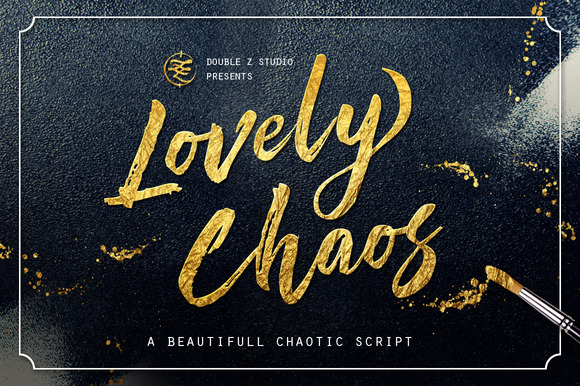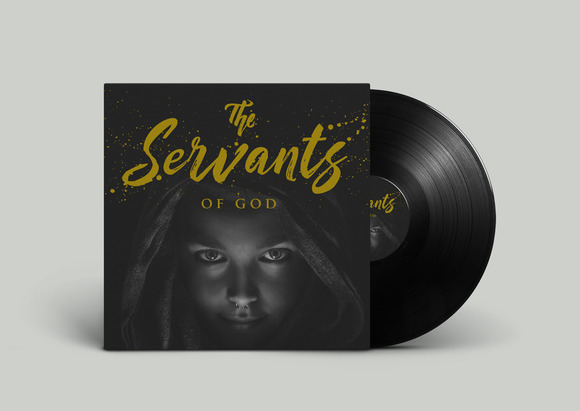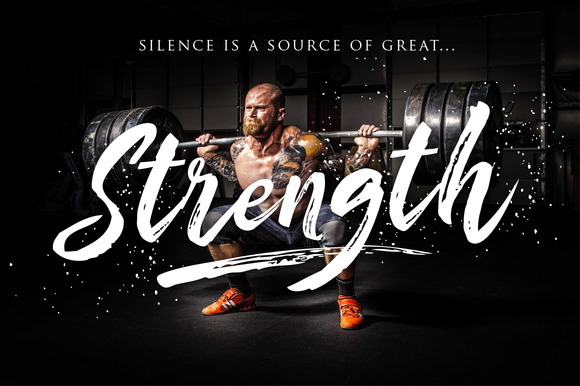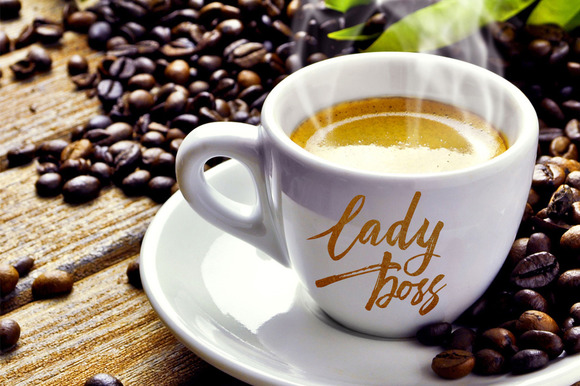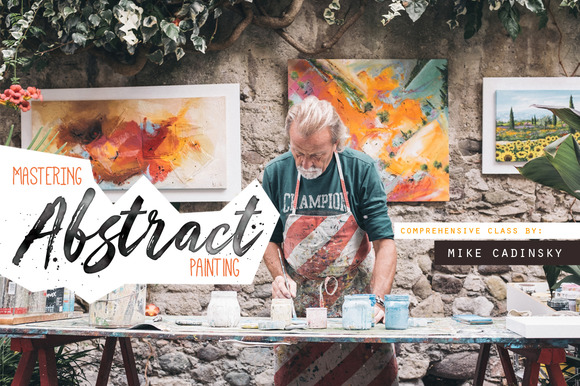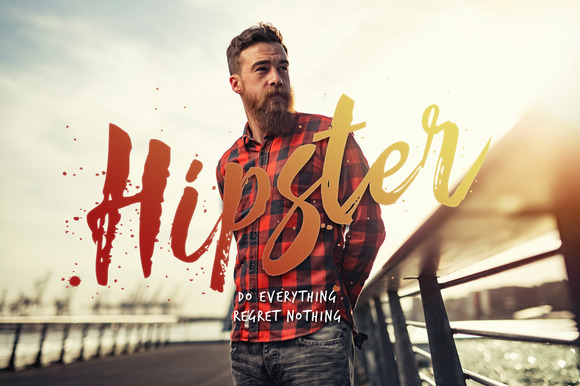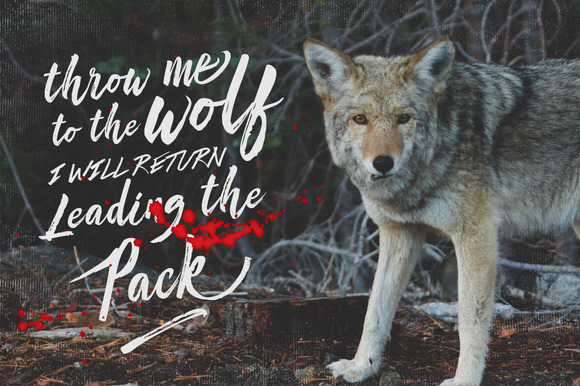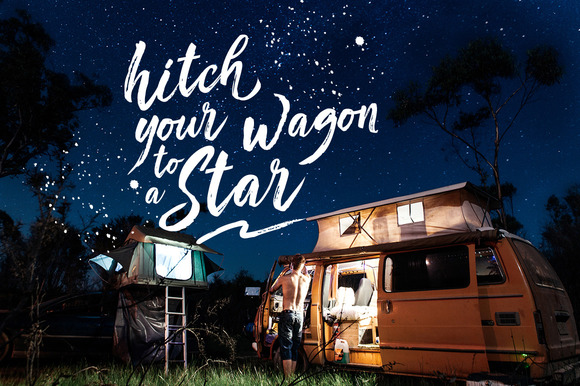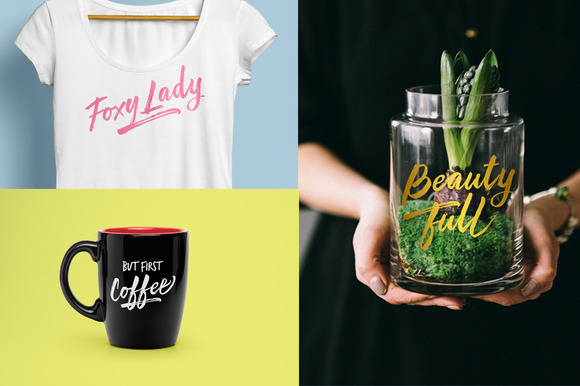
Lovely Chaos Font
About Lovely Chaos Font
LovelyChaos is a chaotic beautiful script. The imperfect flow and grunge style, combined with script creates an elegant and grunge feel at the same time.
Awesome for designing book covers, film covers, apparel, cards, logos, posters, etc. Opentype features give you more alternatives in designing.